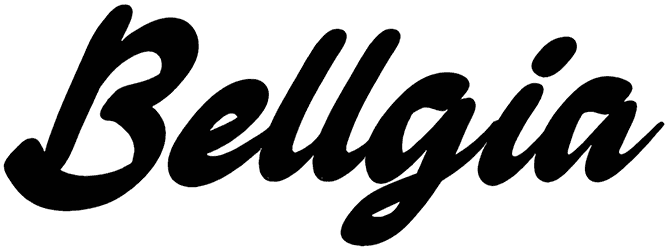
Bellgia Font
Sometimes you may feel the necessity of adding your personalized touch to your creative ideas, including business cards, logos, branding projects, billboards, or social media posts, and in this way, a script font like Bellgia would be really helpful.
This handwritten font comes with angular characters that are designed with precision and softness; thus, it can bring a feeling of drama, delicacy, and professionalism to your work.